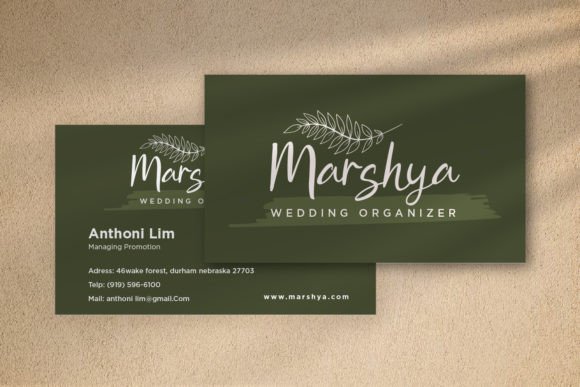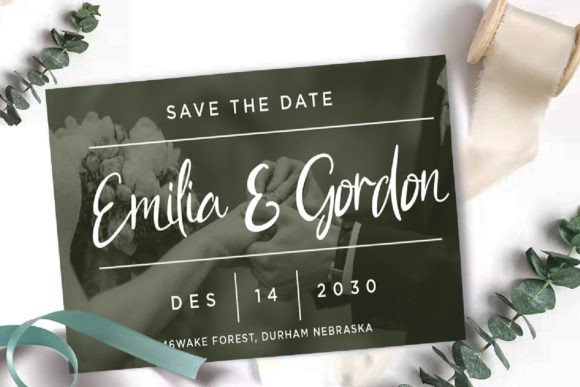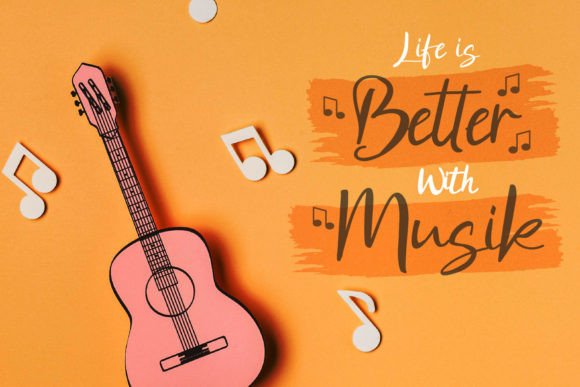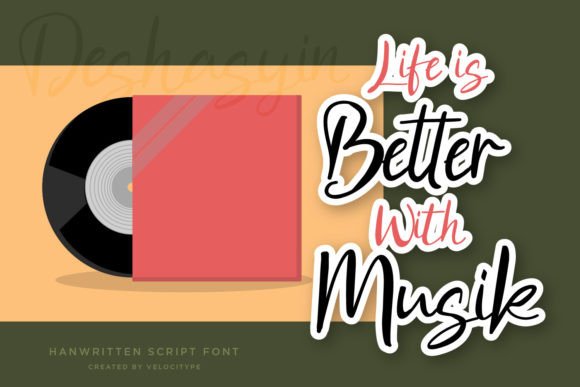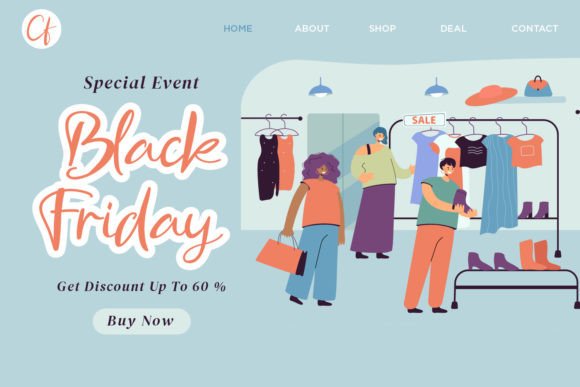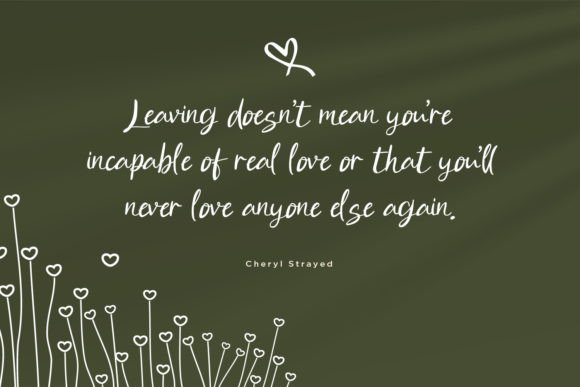
The Elegance of Deshasyin Font: A Designer’s Delight
I’ll never forget the time I was working on a luxury branding project for a high-end fashion client. The brief was simple: create a logo that exuded elegance and sophistication. But, as I scrolled through my font library, I found myself stuck. That’s when I stumbled upon Deshasyin Font, and it was love at first sight! ✨
Deshasyin’s intricate and detailed strokes immediately caught my attention. The font’s luxurious feel and refined aesthetic made it the perfect fit for my project. In this article, I’ll share my experience with Deshasyin Font, its features, and how to make the most of it in your designs.
An Honest Review of Deshasyin Font
- ✨ Elegant and refined aesthetic: Deshasyin Font embodies luxury and sophistication in every letter.
- ✅ PUA encoded: Easy access to all glyphs and swashes, making it a breeze to add a touch of elegance to your designs.
- 💫 Intricate details: The font’s detailed strokes and curves add a level of refinement to any project.
While Deshasyin Font is a stunning addition to any design, there are a few things to keep in mind:
- ⚠️ Legibility at small sizes: Due to its intricate details, Deshasyin Font may not be the best choice for body text or small font sizes.
- 🤔 Pairing with other fonts: As with any script font, pairing Deshasyin with other fonts can be tricky. Make sure to choose complementary fonts that don’t compete with its elegance.
The Story Behind Deshasyin Font
While the true story behind Deshasyin Font remains a mystery, it’s said that the font was inspired by traditional Indian calligraphy. The creator aimed to capture the essence of luxury and sophistication in a font that would be both elegant and refined.
Q: What is PUA encoding?
A: PUA (Private Use Area) encoding allows font creators to include additional glyphs and characters that aren’t part of the standard Unicode character set. This means you can access all the glyphs and swashes in Deshasyin Font with ease!
Q: Is Deshasyin Font suitable for body text?
A: While Deshasyin Font is stunning, it’s not ideal for body text due to its intricate details and potential legibility issues at small sizes.